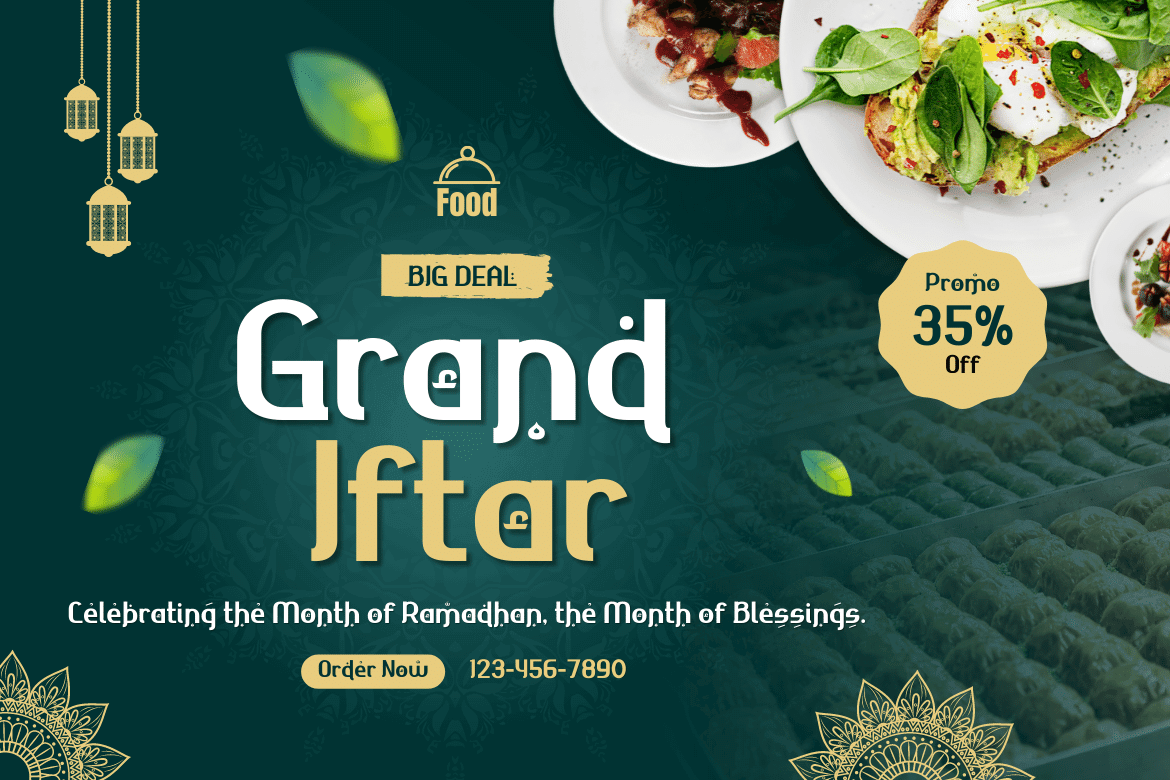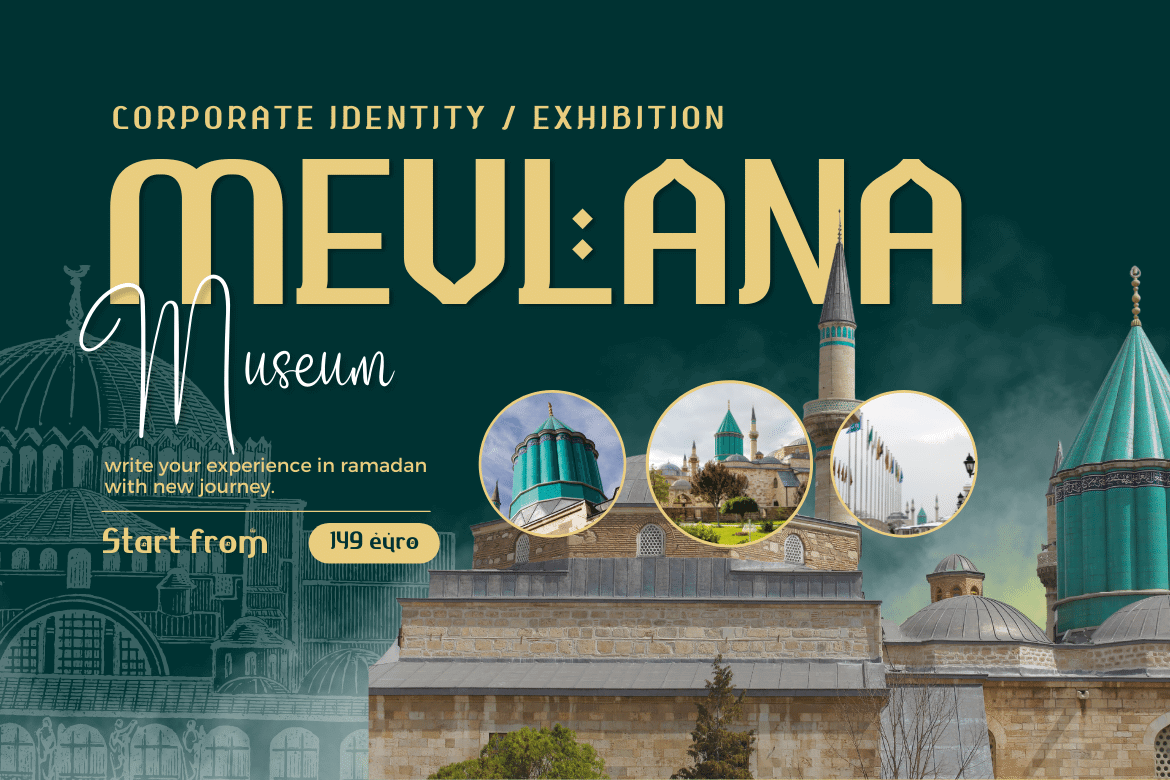
Ahmisya Display Font
The Ahmisya font will give your designs a genuine Middle Eastern feel. Use this font in your super projects to get everyone’s attention. Don’t put off adding an elegant Arabic touch to your design any longer.